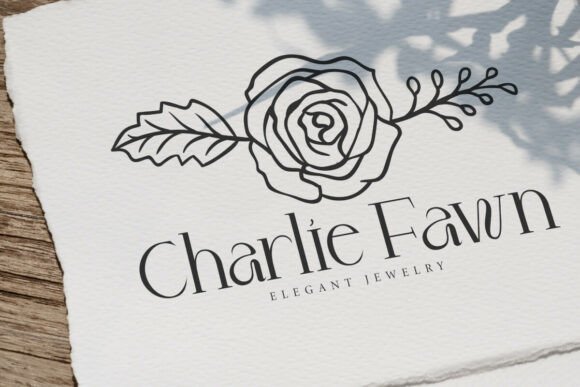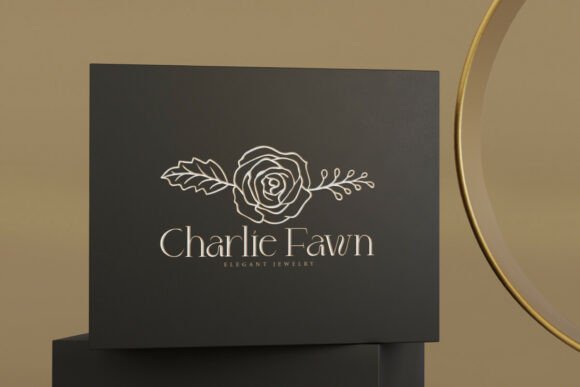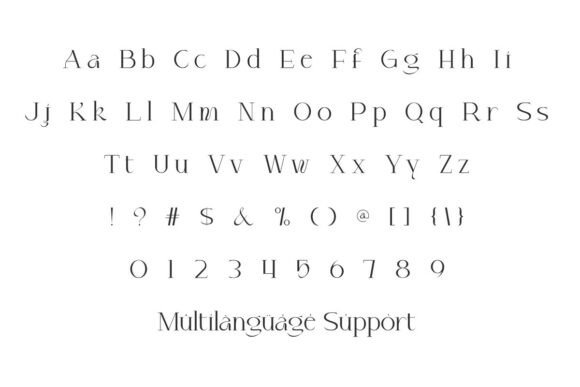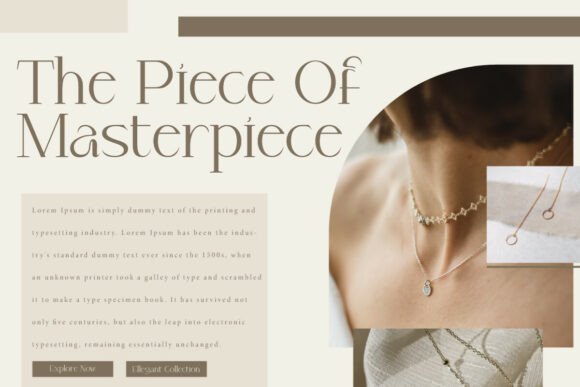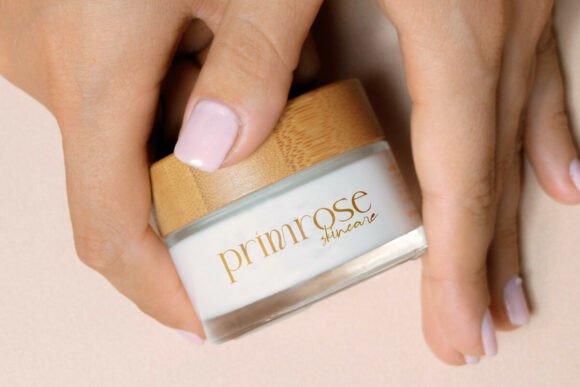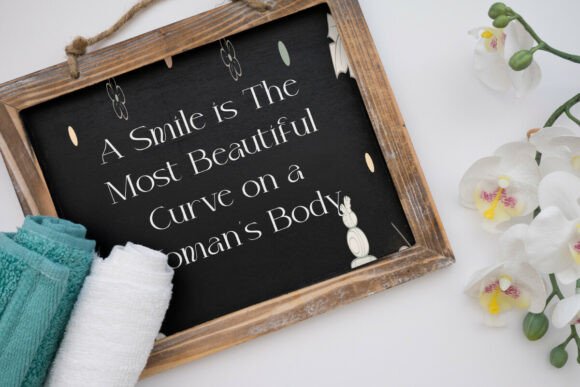
Introducing Charlie Fawn Font: Elevate Your Design with Elegance and Sophistication
In the world of typography, fonts play a crucial role in conveying messages, expressing emotions, and creating visual identities. For designers and crafters seeking a typeface that embodies modernity, elegance, and sophistication, Charlie Fawn Font is an exceptional choice. This modern serif font has been meticulously crafted to offer a unique blend of geometric stability and gentle irregularities, making it perfect for a wide range of design applications.
Characteristics of Charlie Fawn Font
Charlie Fawn Font is distinguished by its soft contrast, organic curves, and refined structure. The font’s design strikes a perfect balance between geometric stability and gentle irregularities, creating an elegant and contemporary visual tone. This balance ensures that the font remains highly legible, making it suitable for both large and small text compositions.
One of the standout features of Charlie Fawn Font is its distinctive letterforms. The open “a” and curved “w” are particularly noteworthy, adding a touch of personality to the font while maintaining functional clarity across all glyphs. These unique characteristics make Charlie Fawn Font an excellent choice for designers looking to create visually appealing and memorable designs.
Versatility and Applications
Charlie Fawn Font’s versatility is one of its most compelling attributes. Its stylish refinement and professional finish make it an ideal choice for a variety of design applications, including:
• Editorial Work: Charlie Fawn Font’s elegant and refined structure makes it perfect for use in magazines, newspapers, and books, where readability and visual appeal are paramount.
• Logo Design: The font’s unique letterforms and distinctive characteristics make it an excellent choice for logo design, allowing businesses to create memorable and impactful brand identities.
• Luxury Branding: Charlie Fawn Font’s sophisticated and refined aesthetic makes it well-suited for luxury branding, where high-end visual identities are essential.
Design Benefits
Charlie Fawn Font offers several design benefits that make it an attractive choice for designers and crafters. These benefits include:
• Smooth Kerning and Balanced Proportions: The font’s smooth kerning and balanced proportions ensure that it works well in both large and small text compositions, maintaining its elegance and sophistication across various design applications.
• Functional Clarity: Despite its unique and distinctive characteristics, Charlie Fawn Font maintains functional clarity across all glyphs, making it highly legible and effective for communication.
• Minimal yet Expressive Shapes: The font’s minimal yet expressive shapes bring a level of sophistication to every project, giving designers the tools they need to create professional, artful finishes.
Charlie Fawn Font is a modern serif font that offers a unique blend of elegance, sophistication, and versatility. Its soft contrast, organic curves, and refined structure make it perfect for a wide range of design applications, from editorial work and logo design to luxury branding. With its smooth kerning, balanced proportions, and functional clarity, Charlie Fawn Font is an excellent choice for designers and crafters seeking to elevate their designs with a touch of modernity and refinement.
Whether you’re working on a large-scale design project or a small, personal endeavor, Charlie Fawn Font is sure to bring a level of professionalism and artistry to your work. Its distinctive letterforms, minimal yet expressive shapes, and stylish refinement make it an exceptional addition to any designer’s toolkit.
In conclusion, Charlie Fawn Font is a sophisticated and versatile typeface that is sure to meet the needs of designers and crafters seeking a modern serif font with a touch of elegance and sophistication. Its unique characteristics, design benefits, and versatility make it an excellent choice for a wide range of design applications.